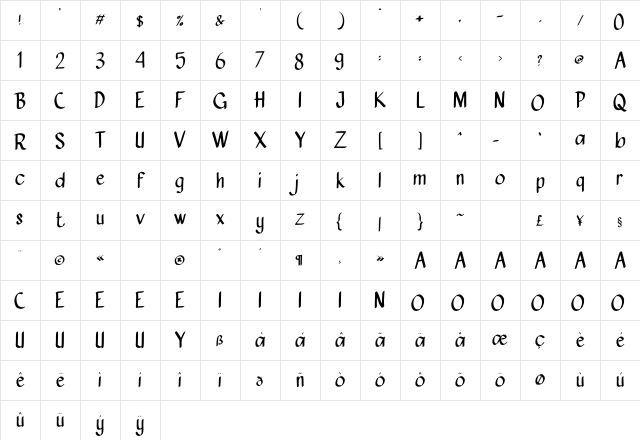
Complete AUFSTEHEN Regular glyph index. Displaying only characters natively supported by AUFSTEHEN Regular font.
AUFSTEHEN is a composed and adaptable typeface that performs quietly and consistently across a wide range of design contexts.